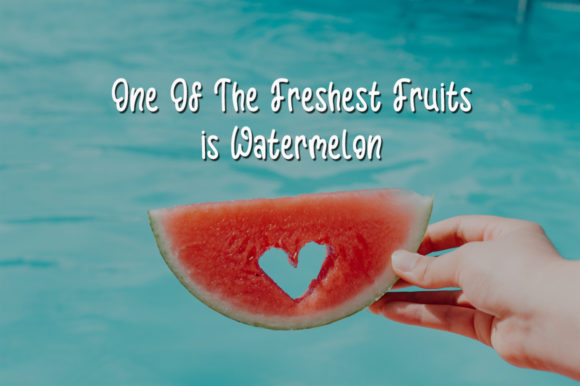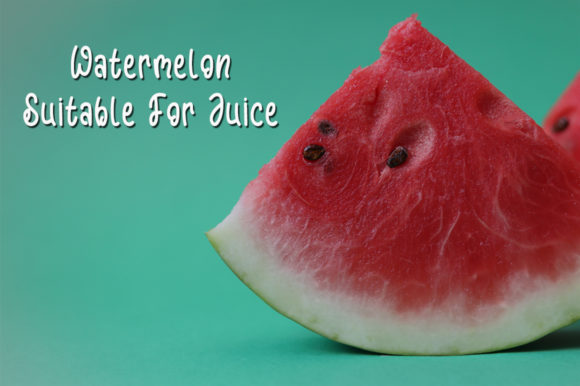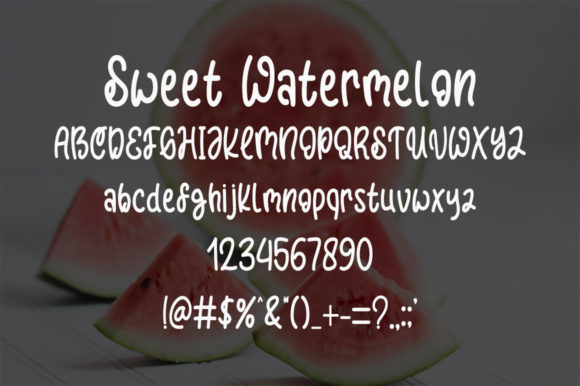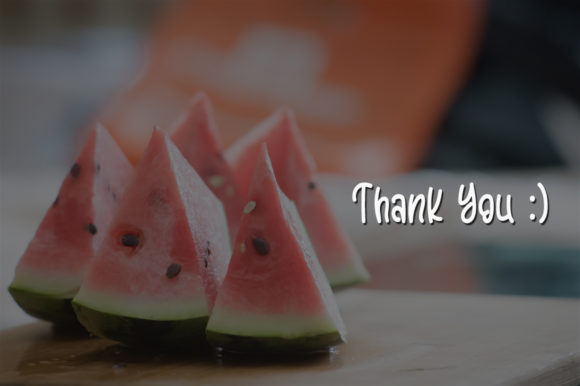
About Sweet Watermelon Font
Sweet Watermelon is a sweet and friendly handwritten font. Its natural and unique style makes it incredibly fitting to a large pool of designs. The only limit is your imagination!